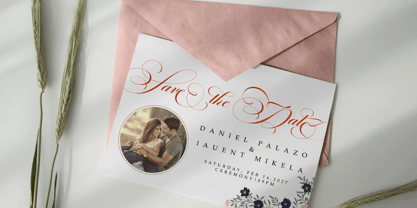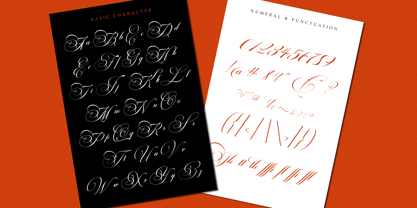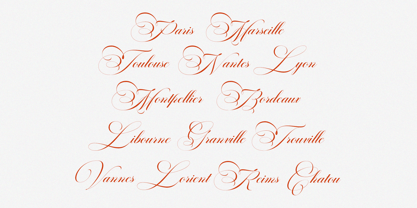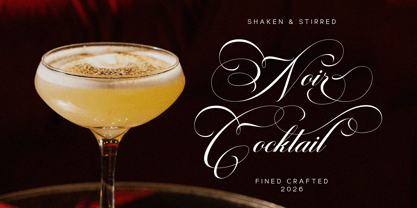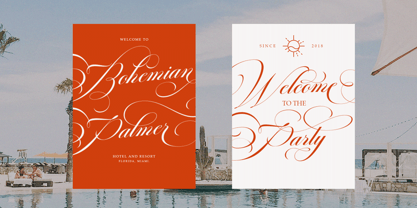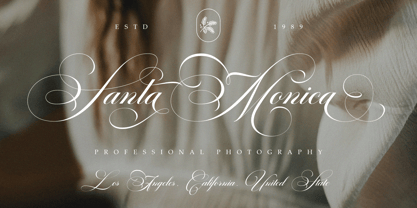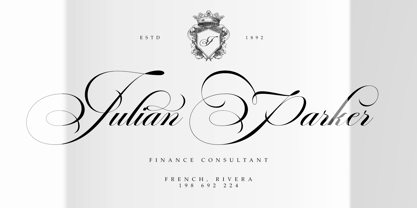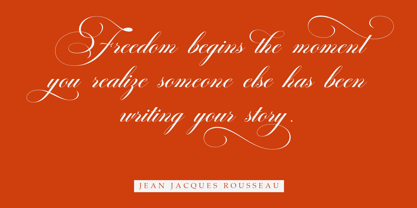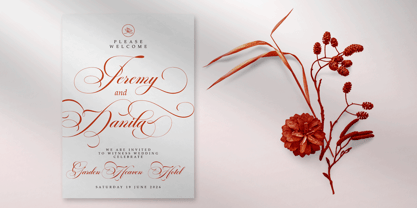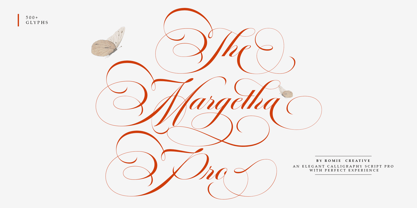
The Margetha Pro
by Romie Creative
The The Margetha Pro Font Family was designed by Romi Rahmadi and published by Romie Creative. The Margetha Pro contains 1 styles. More about this family
The Margetha Pro is a calligraphy font that comes with very beautiful changing characters, a type of classic decorative copper script with a modern touch, designed with high detail to convey stylish elegance. The Margetha Pro calligraphy is attractive because the typeface is smooth, clean, feminine, sensual, glamorous, simple and very easy to read, due to the many fancy letter connections. I also offer a number of viable style alternatives for many letters. The classic style is very suitable to be applied in various formal forms such as invitations, labels, restaurant menus, logos, fashion, make up, stationery, novels, magazines, books, greeting/wedding cards, packaging, labels or all kinds of advertising purposes. . The Margetha Pro Calligraphy is encoded with Unicode PUA, which allows full access to all additional characters without having to have special design software. Mac users can use Font Book, and Windows users can use Character Map to view and copy any of the additional characters to paste into your favorite text editor/application. If you need help or have any questions, let me know. I'm happy to help. Thank you & Happy Designing!